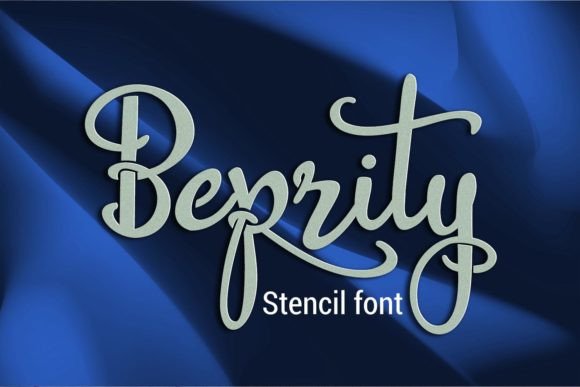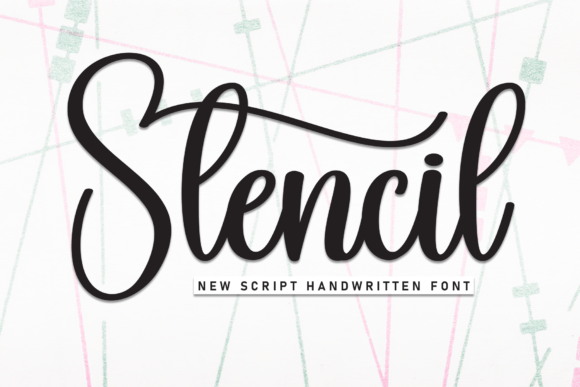
6 Trending Stencil Fonts for Designers in 2026
Discover 6 trending stencil fonts for 2026, ideal for logos, packaging, and online branding. This curated list covers both free and premium stencil fonts, with direct Creative Fabrica download options and inspiration for every design style.
Stencil fonts are enjoying a major resurgence in 2026, popping up in everything from product packaging and bold branding to web headers and AI-generated digital art. Designers around the globe are leveraging these versatile font styles to make impactful, modern statements—thanks to AI-powered design tools, matching and pairing stencil fonts across different projects is easier and more innovative than ever before. Below, you’ll find this year’s most in-demand stencil fonts, all available for instant download on Creative Fabrica. Looking for additional creative font ideas and typography tips? Check out The Ultimate AI Font Generator: Create Custom Typography in Seconds for even more inspiration.
Stencil Font Letters Graphic by Sofiamastery
This Stencil Font Letters set by Sofiamastery features a timeless design, perfect for both vintage and modern branding projects. The font includes carefully crafted uppercase and lowercase letters, allowing for seamless integration into logos, packaging, and digital art. Its bold yet readable design works equally well for print materials and online graphics. A smart pick for designers who want flexible, highly legible stencil fonts for diverse applications.
Black Stencil Font by Patlot Digital.Studio
Black Stencil Font by Patlot Digital.Studio delivers a powerful, industrial look that’s on trend for 2026. With extra-bold lines and an uncompromising style, it shines in branding, streetwear, and editorial layouts. Its striking geometry is excellent for social media graphics, headers, or whenever you need to make a statement. This font is a top choice for attention-grabbing displays and modern packaging.
Matryk Stencil Font by Digital Typeface Studio
Matryk Stencil Font features a refined geometric aesthetic, combining precision cuts with a sleek, tech-forward feel. Its clean lines and balanced spacing make it perfect for tech brands, product packaging, or event posters. The clarity and symmetry help it pair well with minimalist layouts and bold accent colors. Matryk provides flexibility for designers seeking a refined yet trendy stencil option.
Beprity Stencil Font by Digital Typeface Studio
The Beprity Stencil Font brings an urban elegance, thanks to its sophisticated lines and gentle curves. It stands out for branding high-end goods, fashion lookbooks, and creative portfolios. With excellent readability and a trendy touch, it is suitable for both digital projects and upscale print campaigns. Beprity adds a dash of refinement to the stencil font category in 2026.
Stencil Font by andikastudio
Stencil Font by andikastudio offers a robust and classic stencil look, making it a superb choice for posters, signage, and standout packaging. Its high-impact uppercase characters ensure visibility across small and large format designs. The straightforward style guarantees that your message comes through loud and clear, blending well with both retro and contemporary design languages. A must-have for designers aiming for that perfect stencil effect.
How to Pick the Right Stencil Font for Your 2026 Projects
When choosing among the trending stencil fonts 2026 has to offer, start by considering your project’s tone and audience. For tech, urban, or minimalist styles, opt for geometric or industrial fonts like Matryk or Black Stencil. For premium branding or portfolios, Beprity’s elegance adds polish and rarity, while classic styles (Stencil Font Letters, andikastudio’s Stencil Font) provide universal appeal. Don’t forget to experiment with combinations—AI-powered tools can help you pair fonts based on mood and regional aesthetics, allowing you to tap into both global and local trends. Need more expert tips on aligning fonts with your brand identity? Visit 13 Essential Retro Groovy Fonts Designers Should Know for actionable guides and resources.